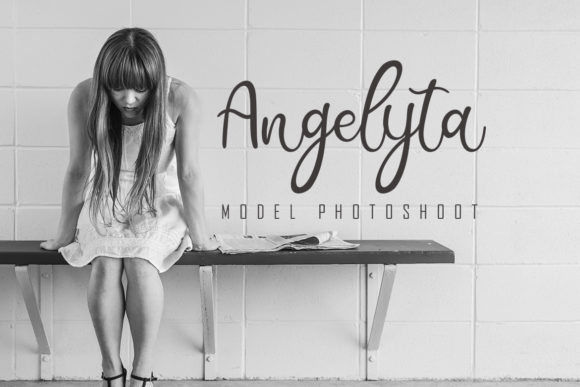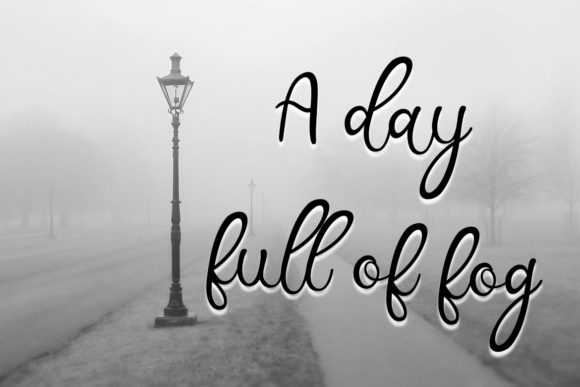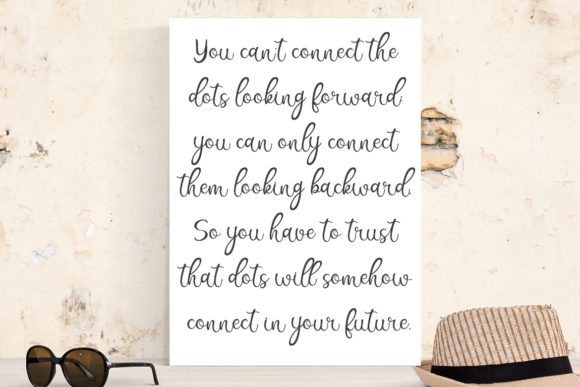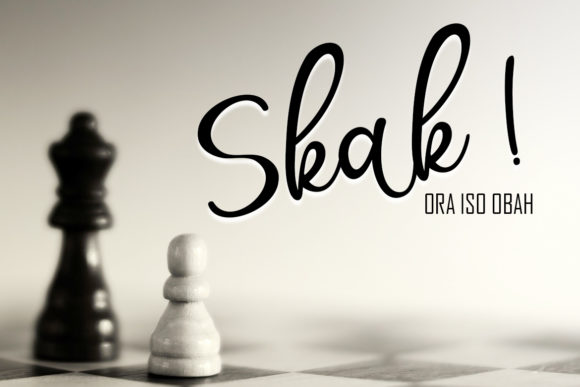
Do you ever find yourself stuck in a creative rut, scrolling through endless font options trying to find the perfect one to bring your vision to life? You’re not alone! We’ve all been there, but what if we told you that there’s a font that’s about to become your new best friend?
| 📌 Product Name | Ceglist Font |
| 👤 Author | Skiiller Studio |
Enter the Ceglist Font, a beautifully crafted typeface inspired by classic typography that’s sure to elevate any design project. Whether you’re creating a stunning Instagram post, designing a wedding invitation, or working on a DIY project, the Ceglist Font is the perfect choice to bring your ideas to life.
As a designer, you know how valuable it is to have a font that’s both versatile and unique. The Ceglist Font is just that – a game-changer that will help you stand out from the crowd and create truly breathtaking designs.
Ceglist Font Key Features
- Font Family: Ceglist comes in a single font family with various styles, including Regular, Bold, Italic, and Bold Italic.
- Unique Characteristics: Ceglist features a unique blend of geometric and organic elements, resulting in a distinctive and modern aesthetic.
Ceglist Font Review
I’ve had the chance to work with the Ceglist font, and overall, it’s a solid addition to any designer’s toolkit. Here’s what I like about it:
- ✨ Unique aesthetic: The Ceglist font has a distinct, modern feel that sets it apart from more generic fonts.
- ✨ Good legibility: The font is clear and easy to read, even at smaller font sizes.
- ✨ Versatile: Ceglist works well in a variety of contexts, from headlines to body text.
However, there are some limitations to keep in mind:
- ⚠️ Limited character set: While the font includes a wide range of Latin characters, it’s lacking in support for non-Latin scripts.
- ⚠️ Not ideal for small text: While the font is legible at larger sizes, it can become difficult to read when shrunk down to very small sizes.
Overall, I’d give the Ceglist font 4 out of 5 stars. While it’s not perfect, it’s a solid choice for designers looking for a modern, unique font. With a bit more development, it could easily become a go-to font for many designers.
The Ceglist font is ideal for:
1. Creating modern and minimalist designs.
2. Adding a touch of elegance and sophistication to your designs.
3. Creating titles and headings that stand out from the rest.